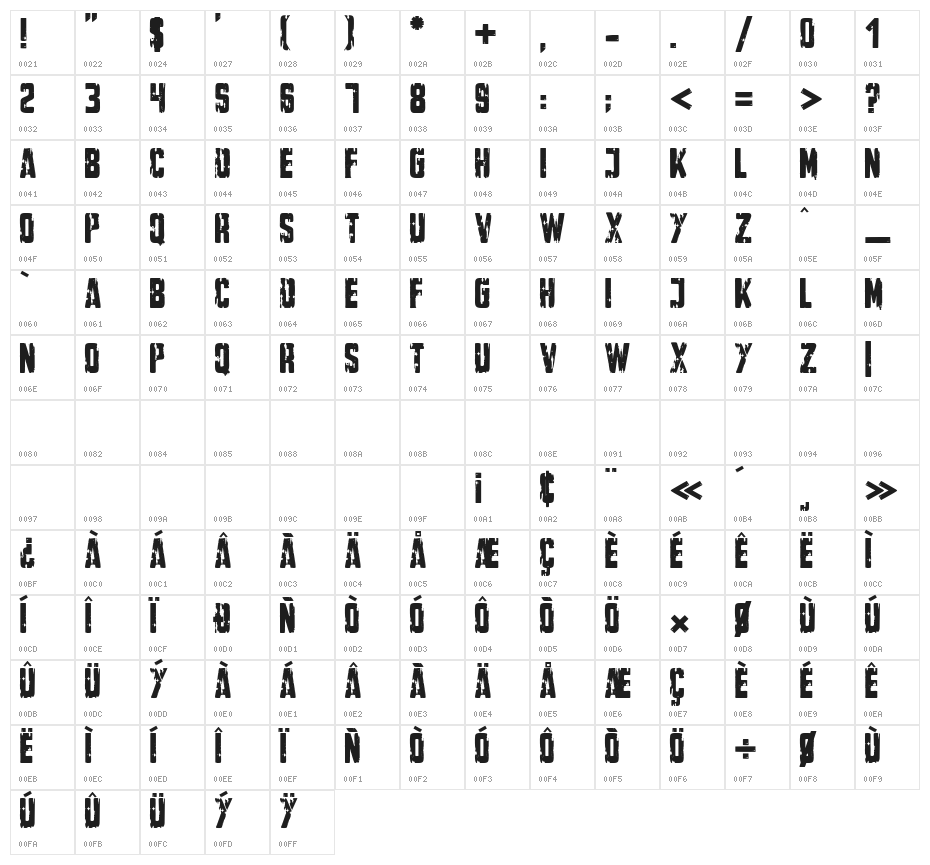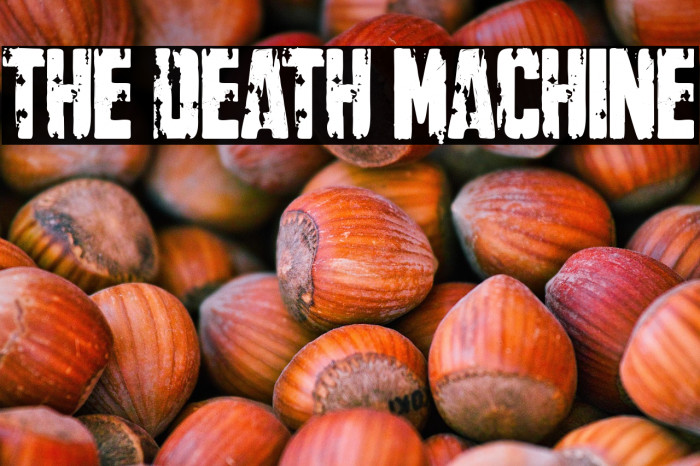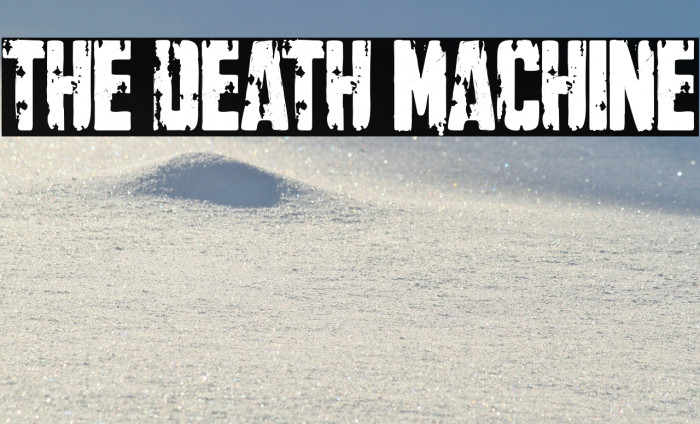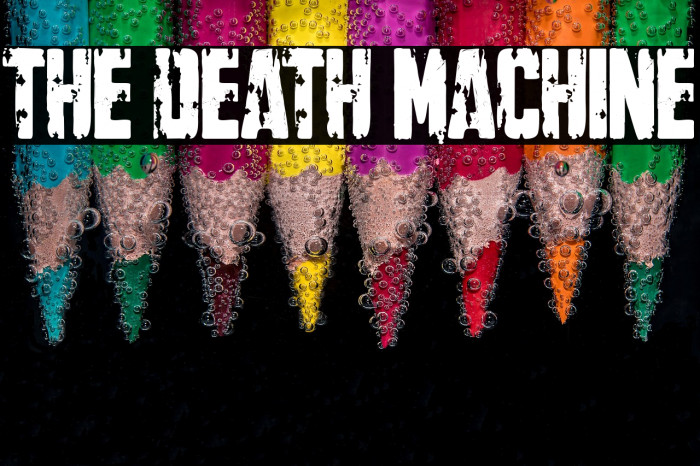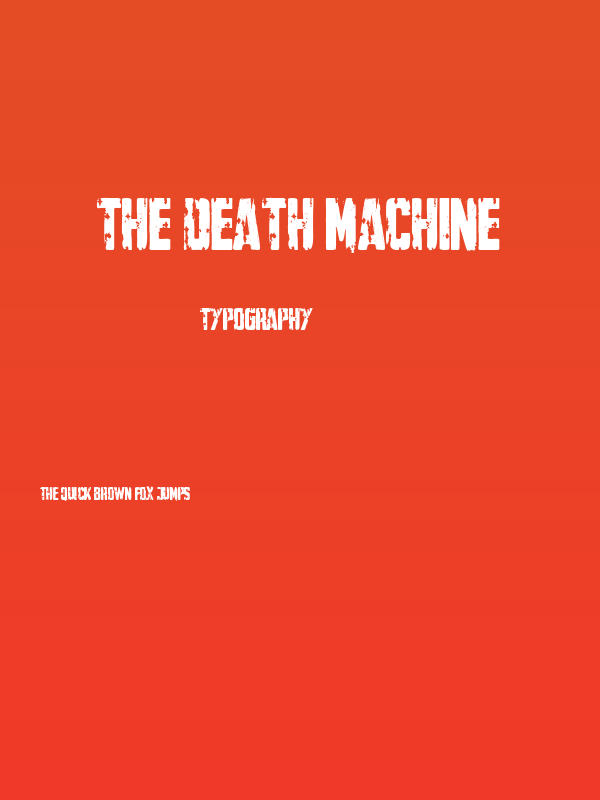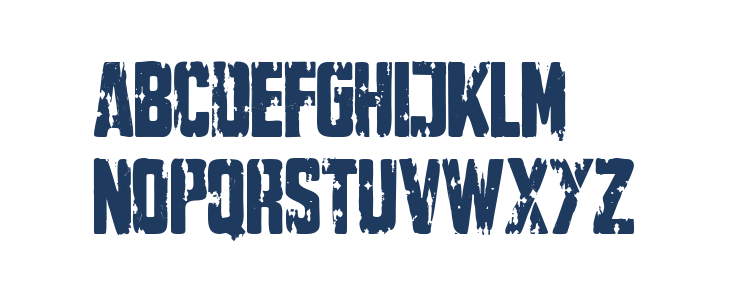
The Death Machine Font
The Death Machine Description
This font features a bold and distressed style, characterized by its rough, textured edges that give it a gritty, worn appearance. The uppercase and lowercase letters maintain a consistent height, while the numbers and special characters follow the same rugged aesthetic. Its boldness and unique texture make it stand out, providing a sense of strength and edginess. The font's design is reminiscent of industrial or grunge themes, making it suitable for projects that require a bold statement or an urban feel.
| Overall Style | Grunge, Industrial |
| Proposed Projects | Ideal for music album covers, posters, urban-themed branding, and edgy graphic designs. |